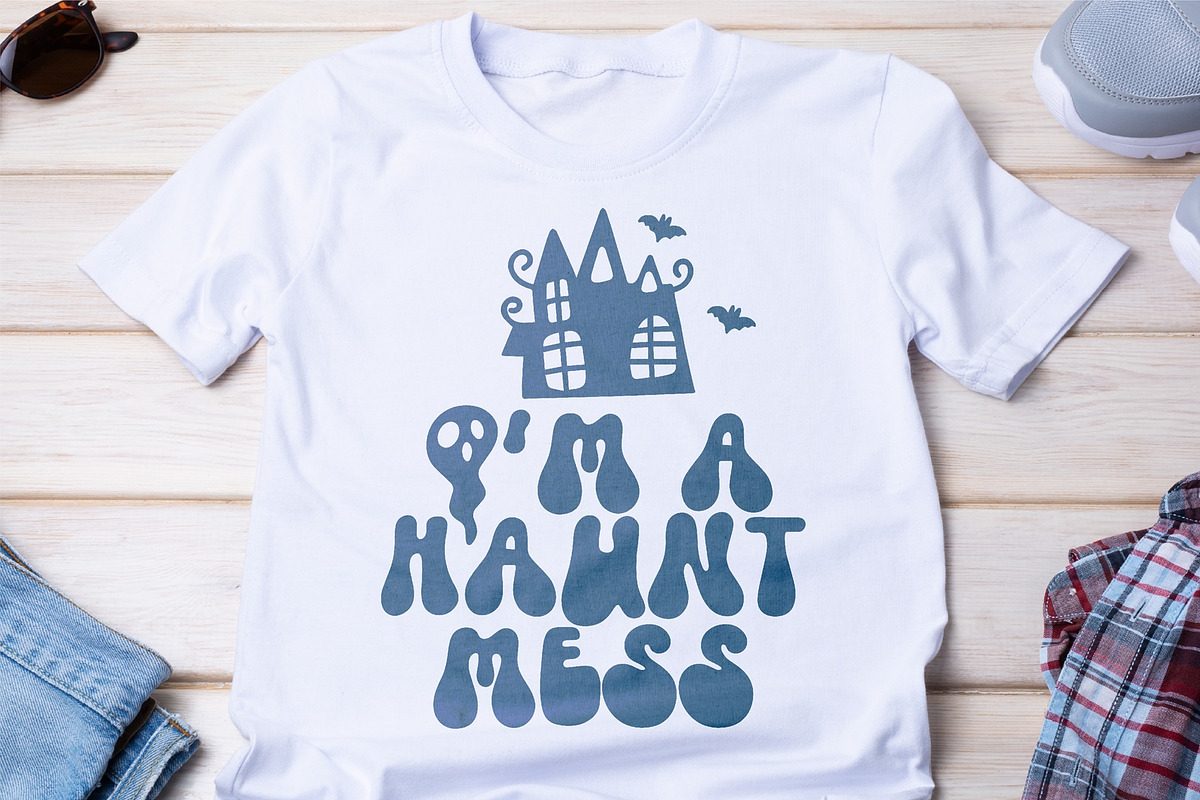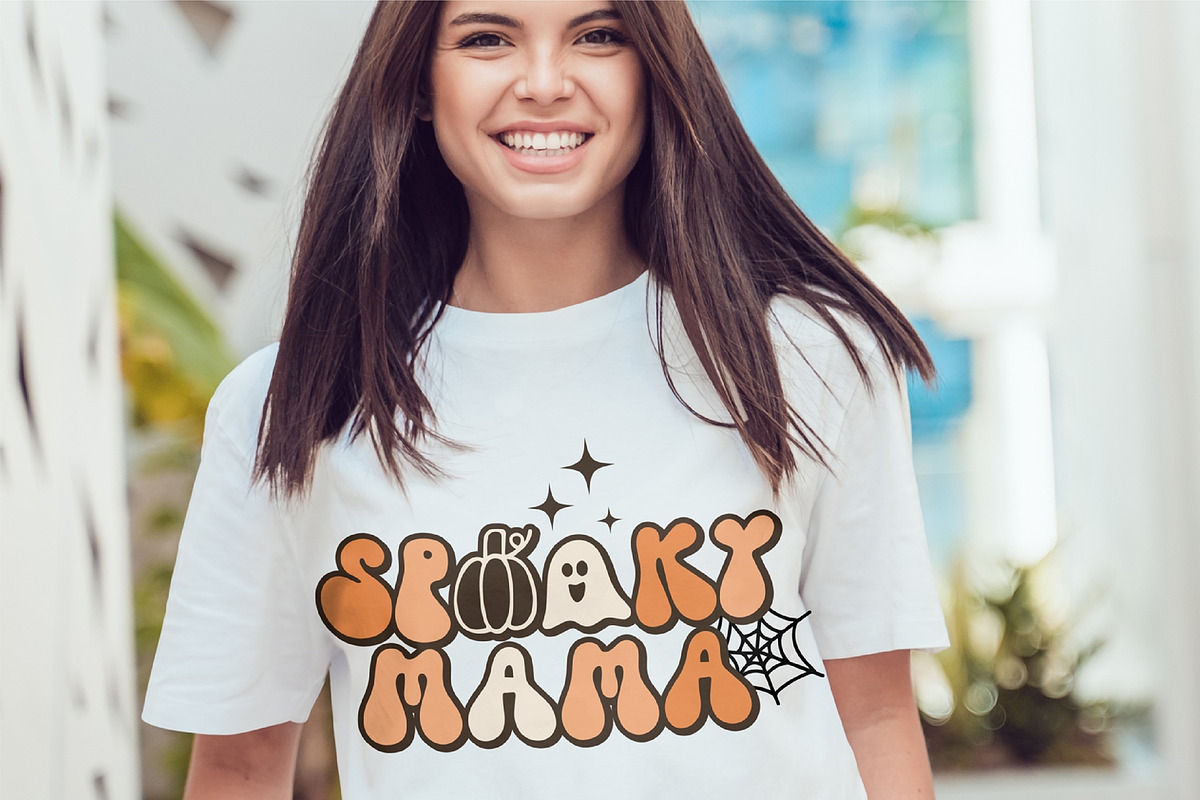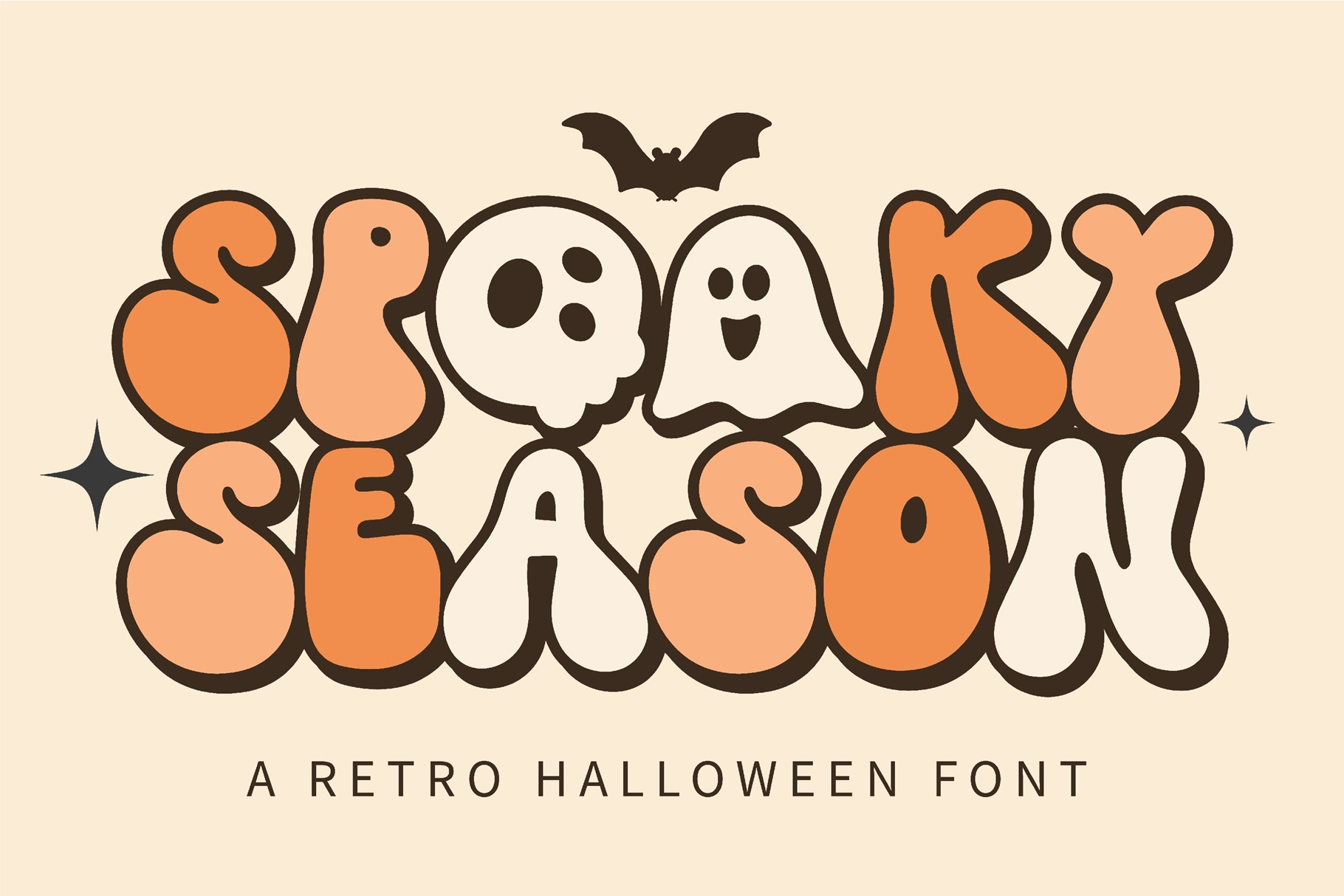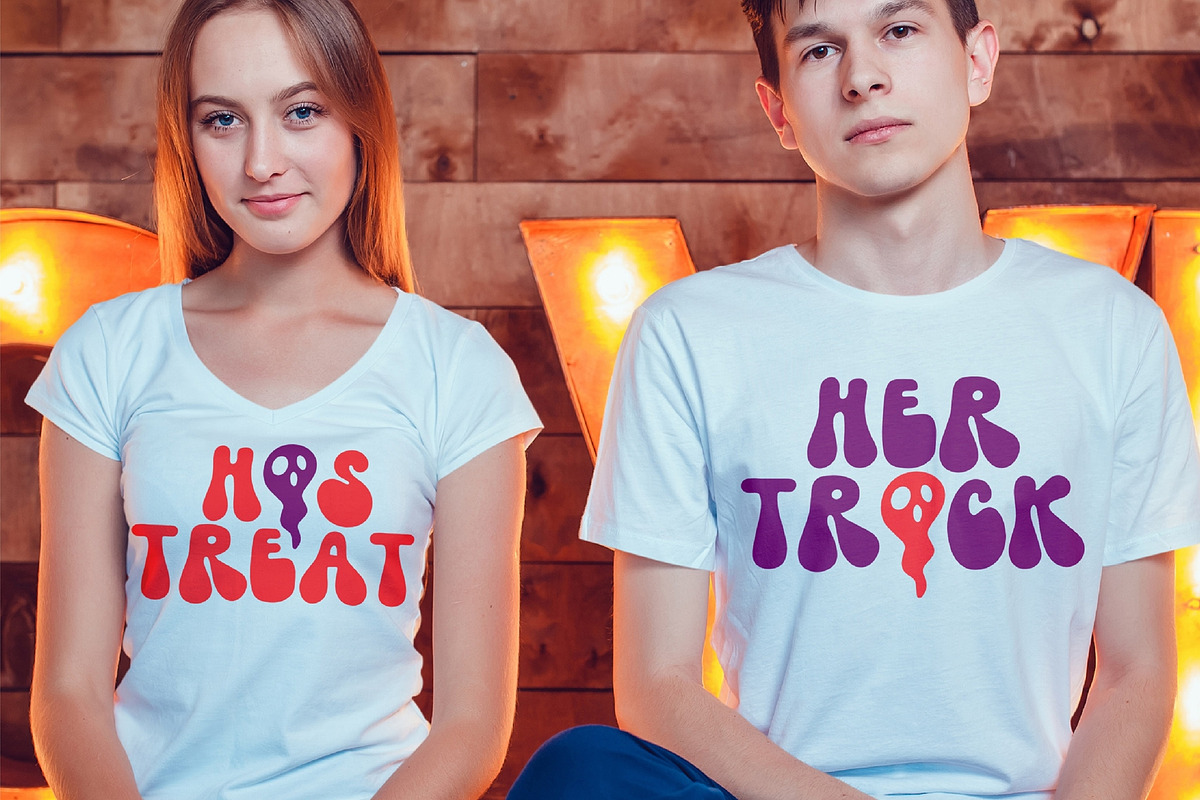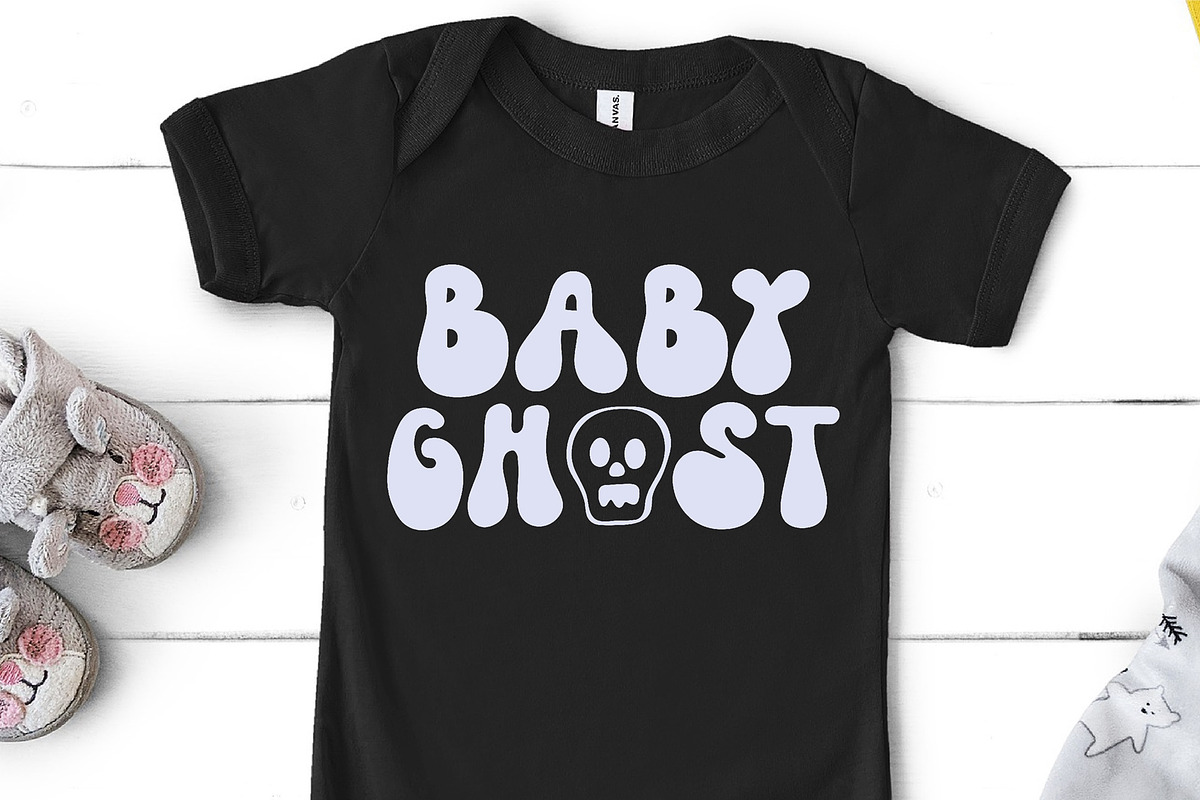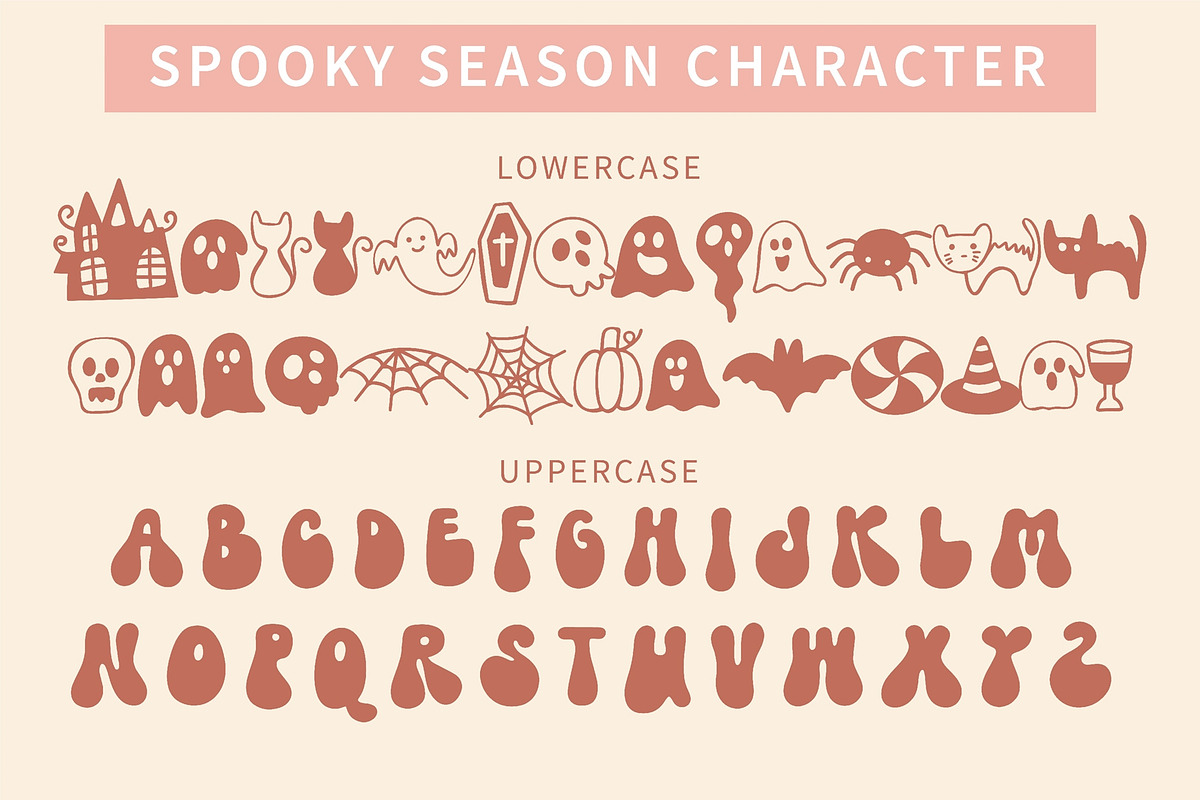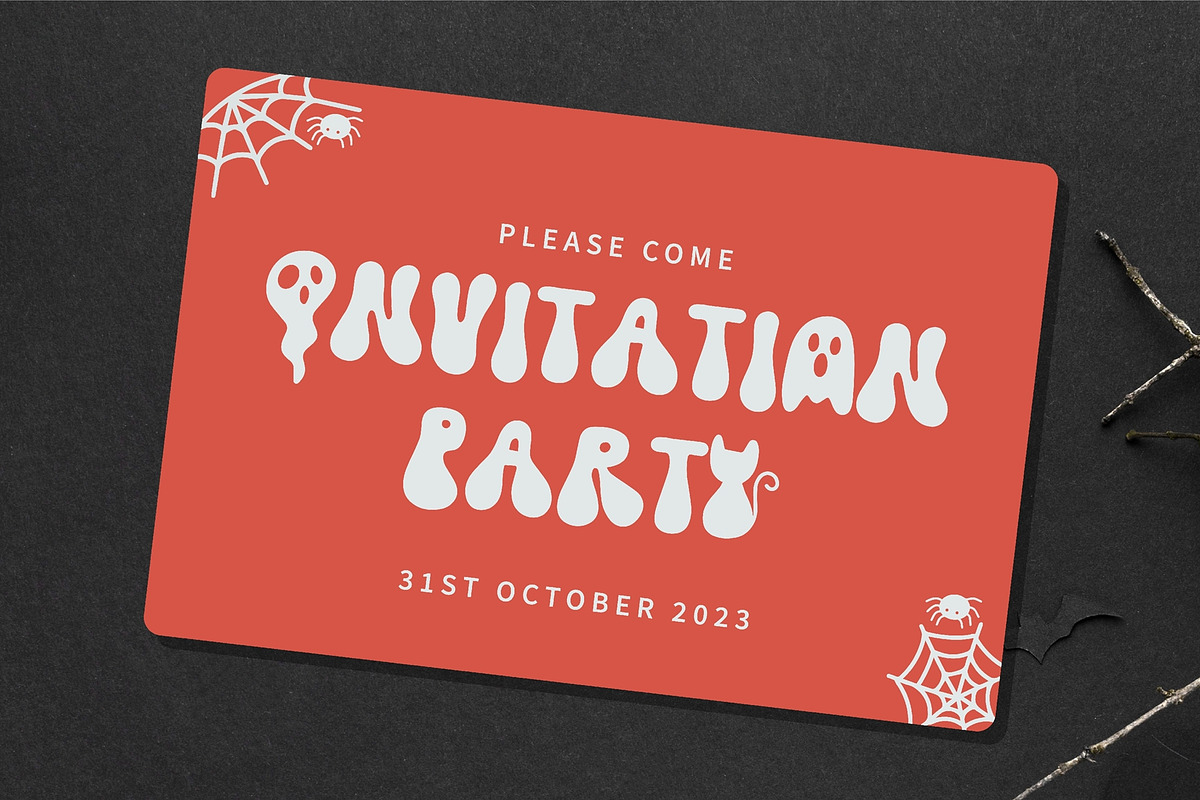
Spooky Season-A Retro Halloween font
Spooky Season is a spooky and fun Halloween font. It is perfect for any October project that requires a dramatic touch!